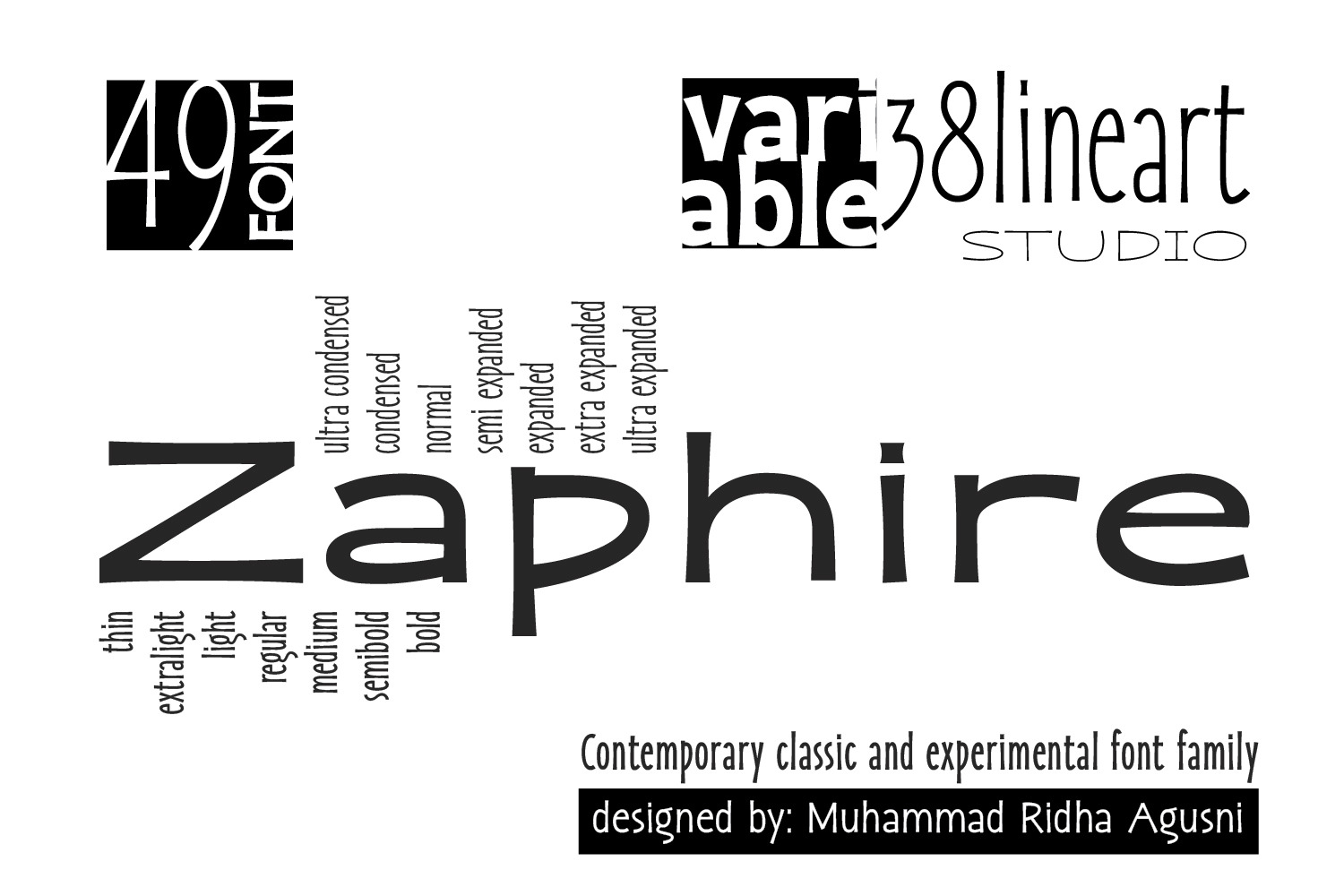
Zaphire - Typeface
Zaphire is a humble sans serif font, delicately infused with a hint of monographic handwriting, seamlessly blending classic elegance with a touch of contemporary experimentation. Comprising a singular variable font, it gracefully encompasses the essence of 49 distinct fonts, gracefully navigating through 7 weights and 7 widths.
Its uniqueness is understated yet undeniable, making it a valuable addition for those seeking to infuse creativity into various artistic endeavors. Zaphire's versatility extends gracefully to contemporary art, posters, and provides an enriching touch to the written word in books and magazines